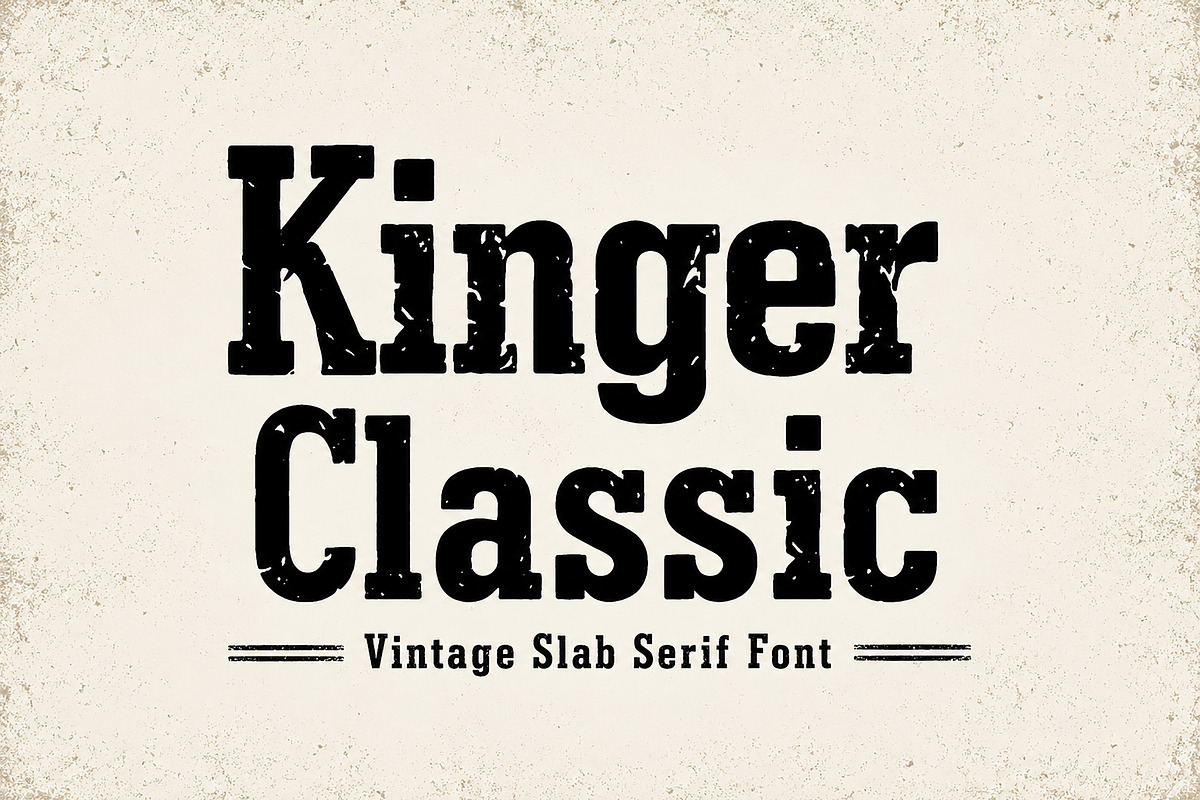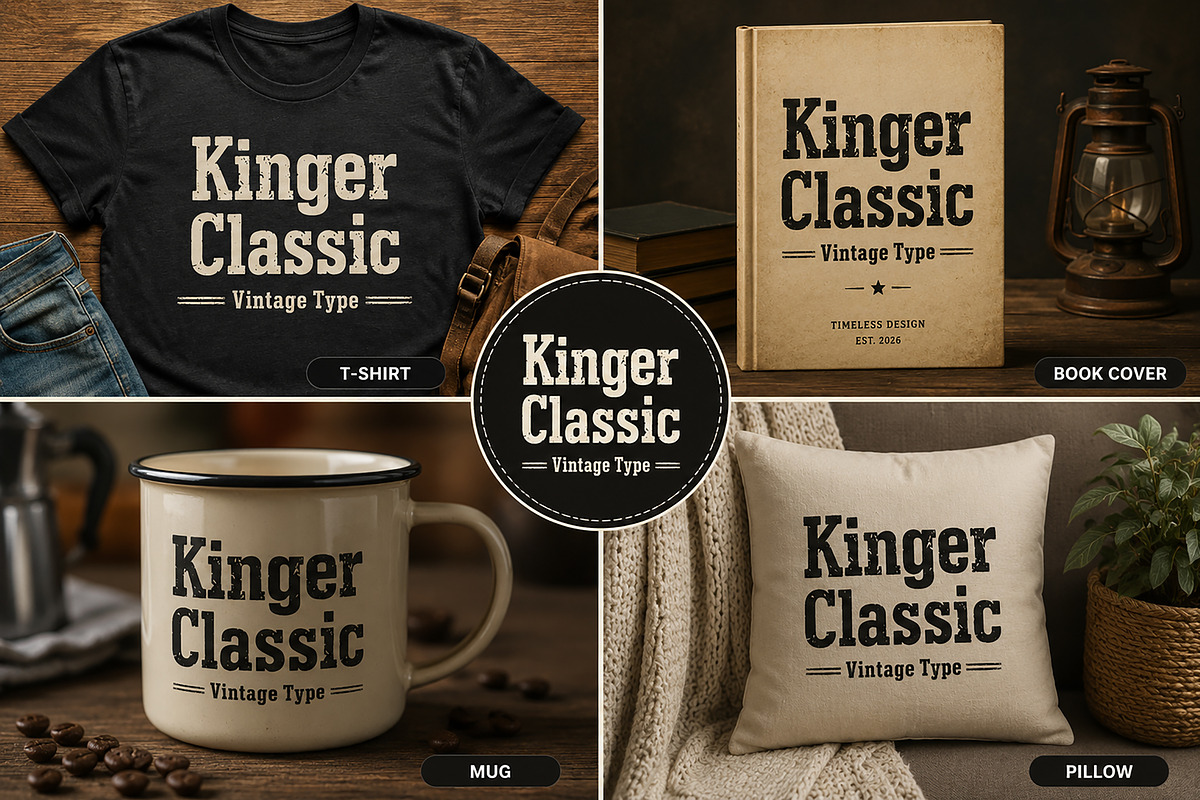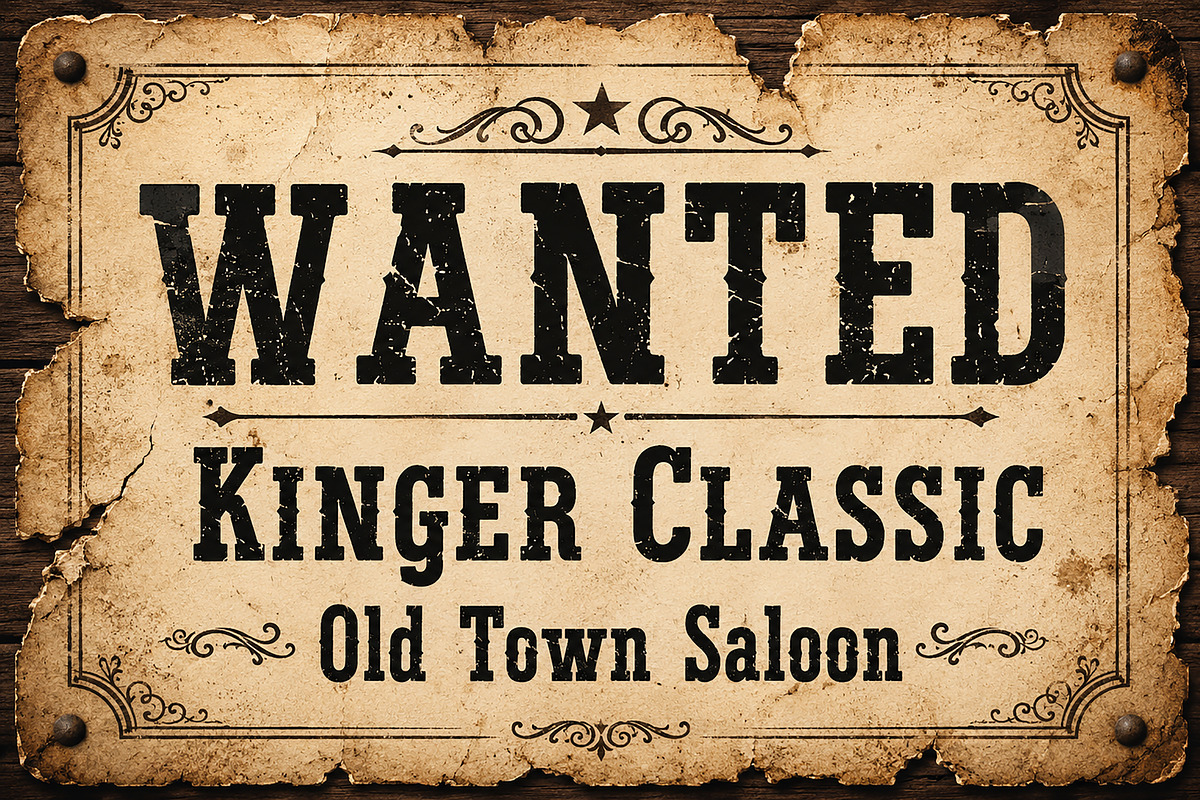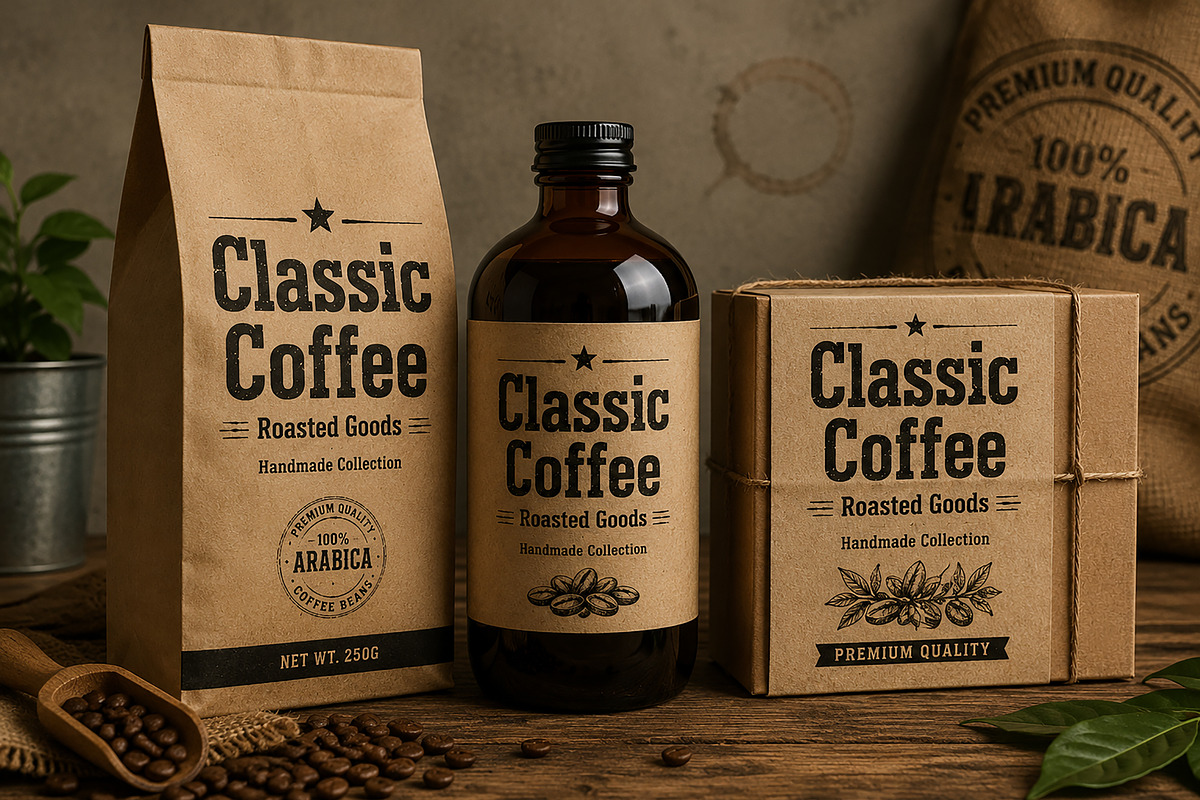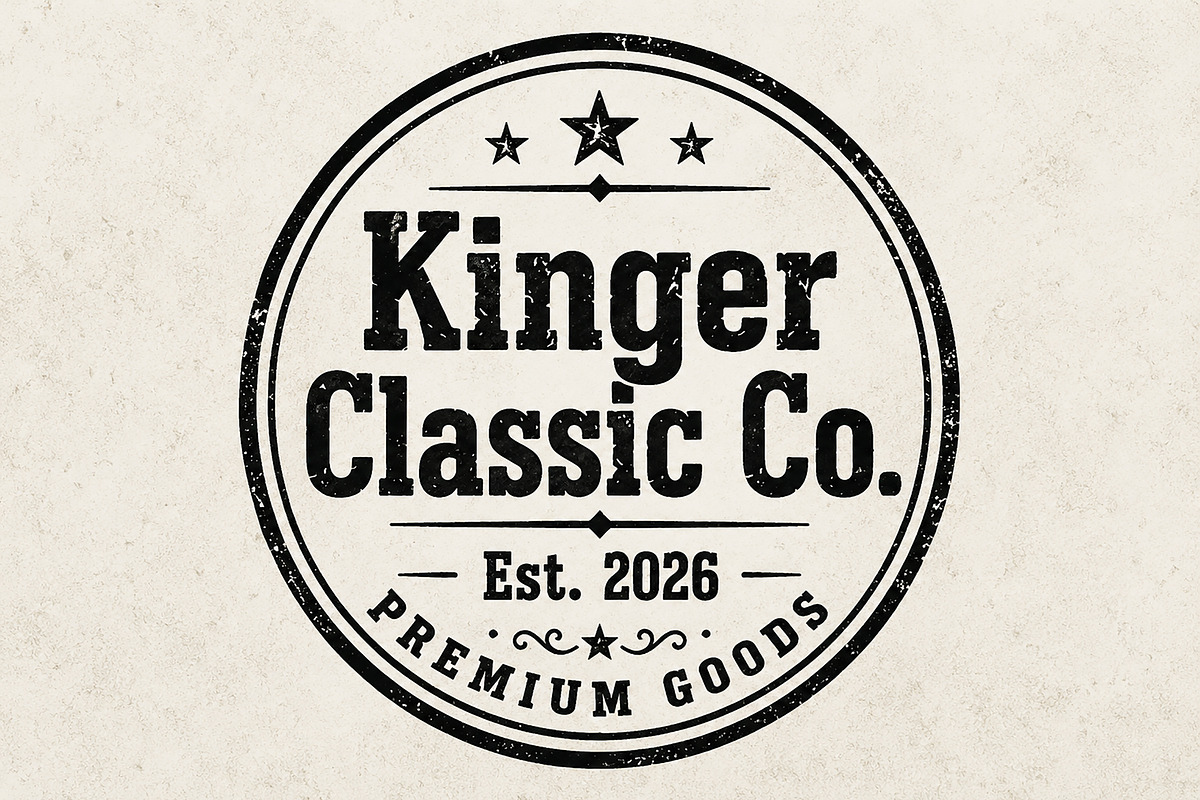
Kinger Classic
Kinger Classic – Vintage Slab Serif Font
Kinger Classic is a bold vintage slab serif font inspired by classic western signage, old whiskey labels, retro posters, and timeless branding design. Featuring strong letterforms with a distressed handcrafted character, this typeface delivers an authentic rustic look perfect for both modern and vintage-inspired creative projects.
Its bold western personality makes it ideal for logos, packaging, apparel, badges, labels, posters, book covers, coffee branding, merchandise, and retro advertising designs. Kinger Classic combines rugged texture with clean readability, making your typography stand out with a powerful old-school aesthetic.
Whether you are designing a rustic brand identity, western-themed artwork, vintage packaging, or retro merchandise, Kinger Classic adds a timeless handcrafted touch to every project.
Vintage Branding
Western Posters
Coffee Packaging
Whiskey Labels
Apparel Design
Retro Merchandise
Rustic Signage
Badge & Stamp Logos
Handmade Product Packaging
Bold Slab Serif Style
Vintage Western Character
Distressed Texture Look
Uppercase Letters